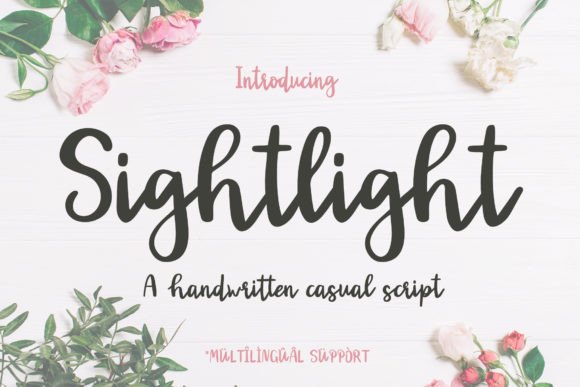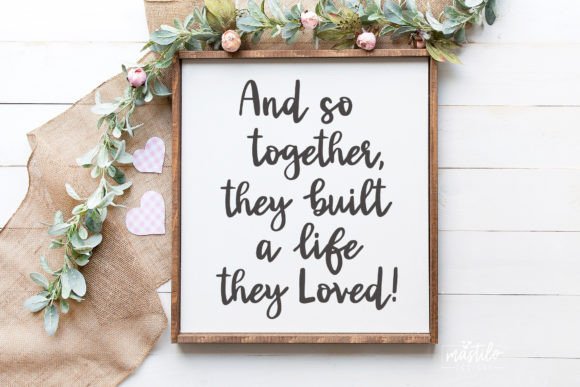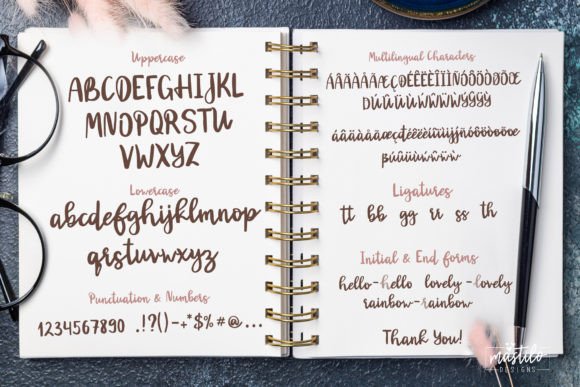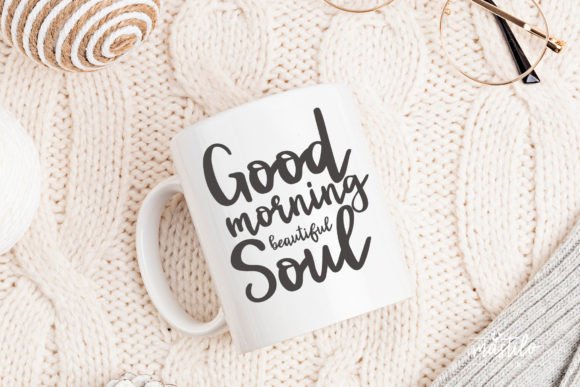
Sightlight Font: Cute Handwritten Script for Cricut & DIY Projects
About the Sightlight Font
Get ready to be inspired by Sightlight Font, a fresh and dynamic typeface for modern creators. Introducing Sightlight, a casual hand written script font with plenty of stylistic ligatures making it a versatile font, with possibilities for use for all your projects.
Sightlight Font Example